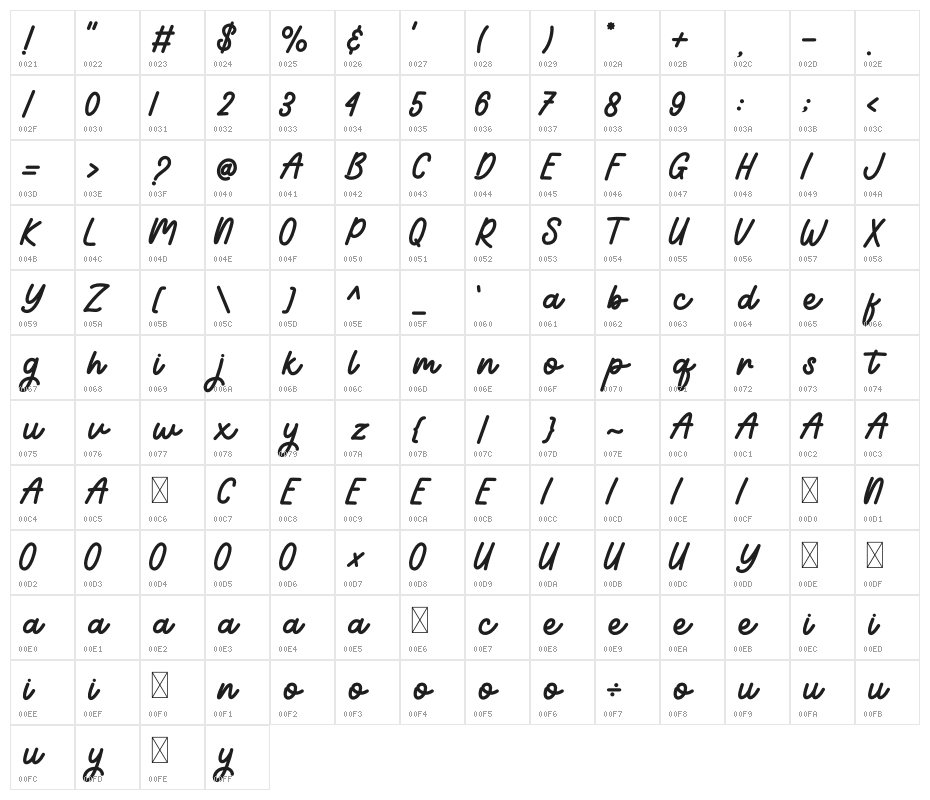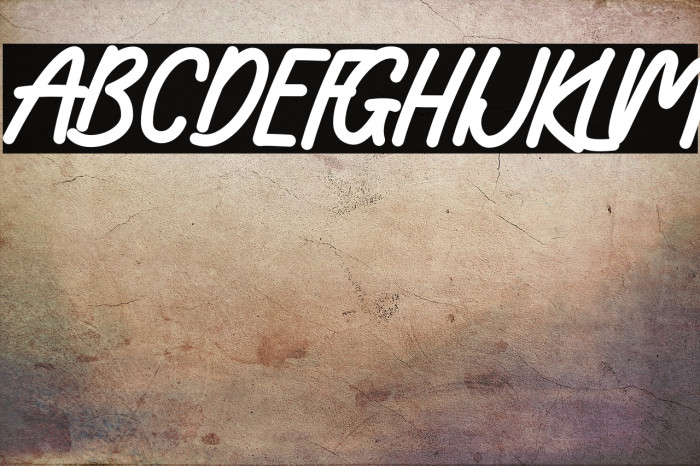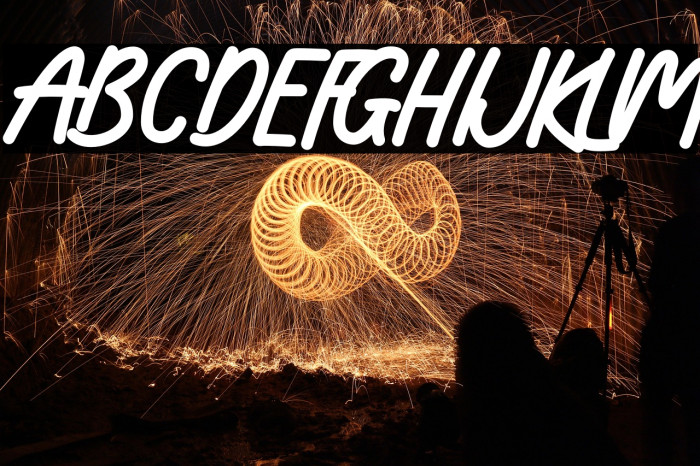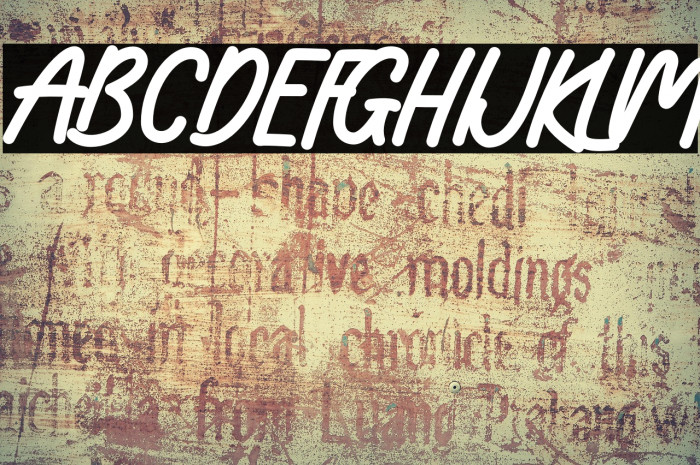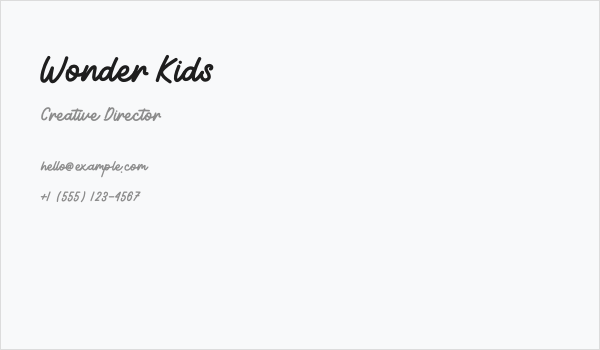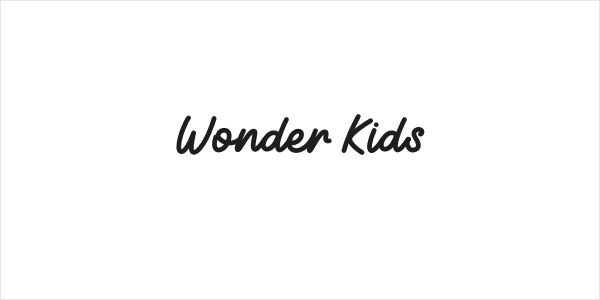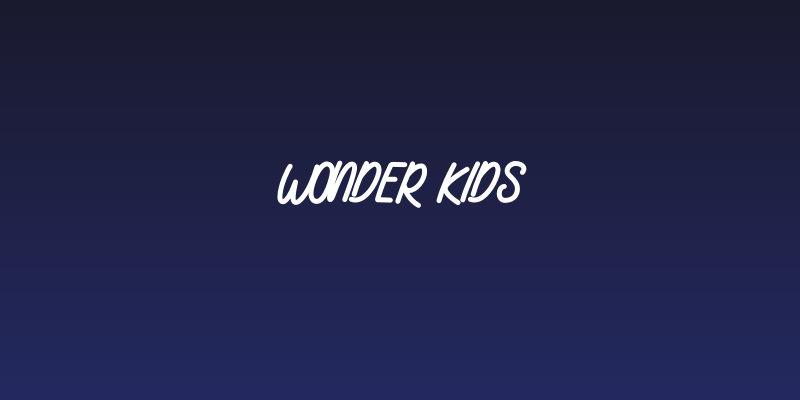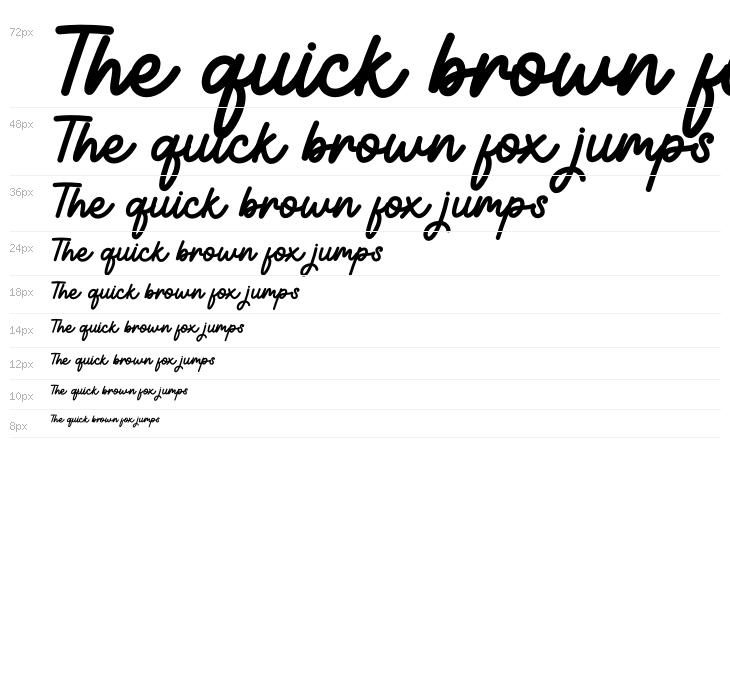
Wonder Kids Font
Wonder Kids Description
This font exudes a playful and energetic vibe with its bold, flowing script style. The characters are connected in a cursive manner, giving it a handwritten appearance that is both casual and dynamic. The strokes are thick and consistent, providing a strong visual impact. The uppercase letters are slightly more formal, while the lowercase letters maintain a friendly and approachable feel. The numbers and special characters follow the same style, ensuring uniformity across all elements. This font is perfect for projects that require a touch of personality and flair.
| Overall Style | Playful, Energetic |
| Proposed Projects | Ideal for children's book covers, playful branding, greeting cards, and creative posters. |